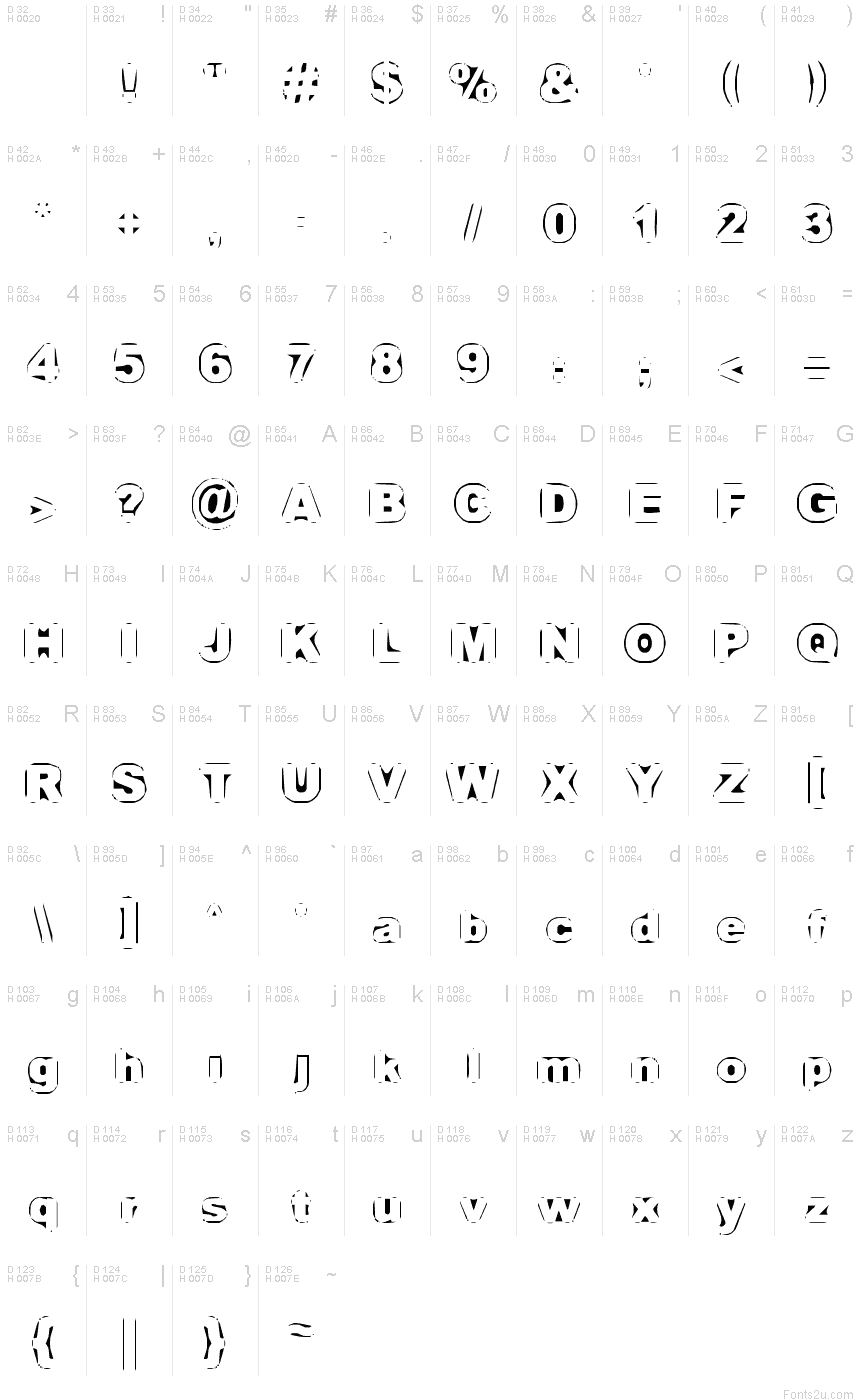
Persona
Persona by Ace Fonts is a free distorted outline display font with a sly, cut-and-shift attitude. The letters feel carved out of a bold rounded sans, then nicked, sliced, and slightly misregistered so the outline breaks and the forms look worn, jumpy, and a little surreal.
That makes it a natural pick for poster headlines, music flyers, zine covers, title cards, and branding that wants a fractured late-90s digital mood. Used as a free font for short words, logos, or opening initials, it has enough disruption in the outlines to make even simple text feel unstable and animated.